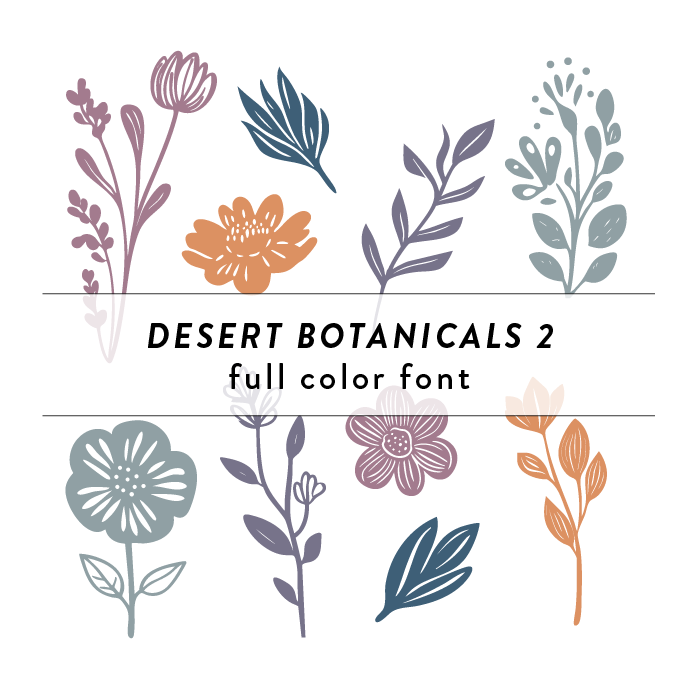
Desert Botanicals 2 Full Color Font is an intricate and vibrant font design inspired by the flora of the desert. Featuring detailed flowers, trees, branches, and leaves, this craft font adds a natural and organic touch to any project. Perfect for nature-themed designs or branding with a botanical aesthetic. This font is a OTF craft font that will appear in color only when used with the silhouette software.